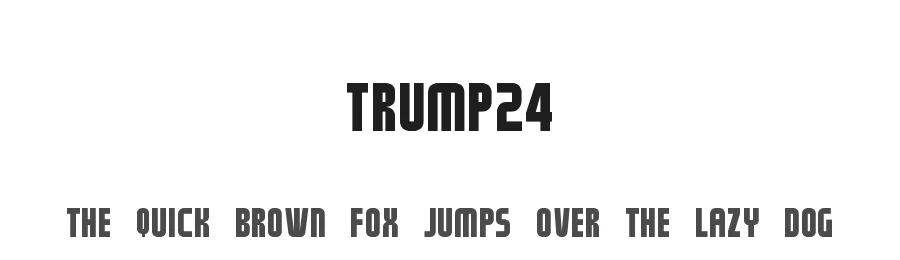
About Rich Night Font
Rich Night Font is a decorative font that shines as a display or heading face. Pair it with a clean sans-serif or serif font for body text β the contrast creates a clear hierarchy while the two styles stay balanced and easy to read.